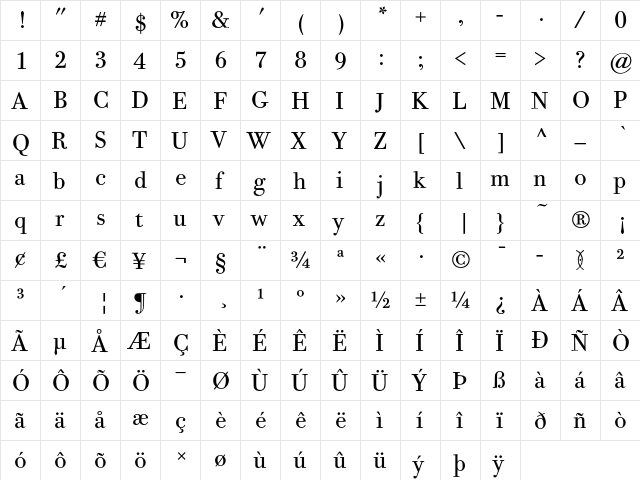
Bodoni Twelve ITC Book
Design Context for Bodoni Twelve ITC Typeface
Bodoni Twelve ITC is a composed and adaptable typeface that performs quietly and consistently across a wide range of design contexts.